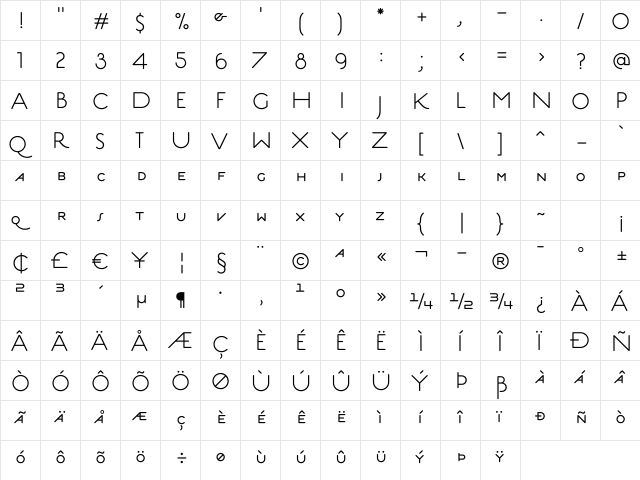
Estilo Regular
| Foundry | Dino dos Santos _ DSType |
Design Context for Estilo Typeface
Estilo takes a measured approach to typography — its balanced proportions and neutral character make it a reliable workhorse for both digital and print work.